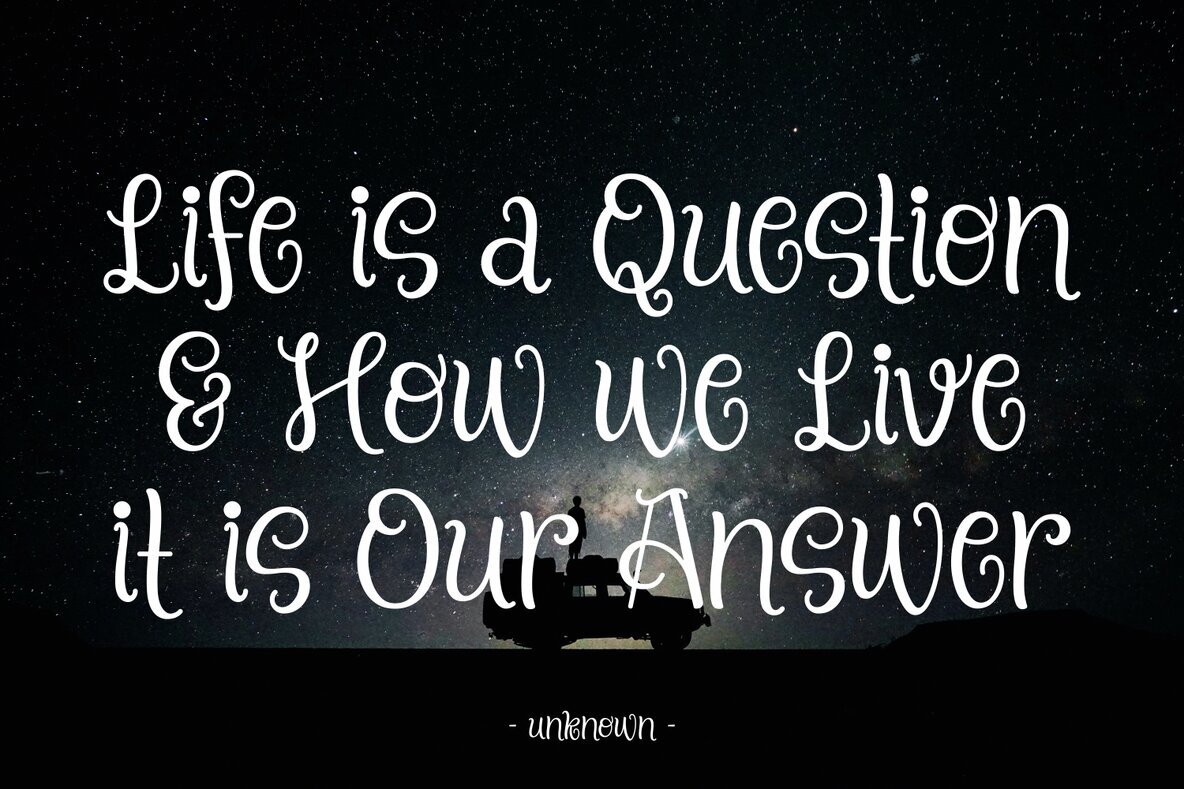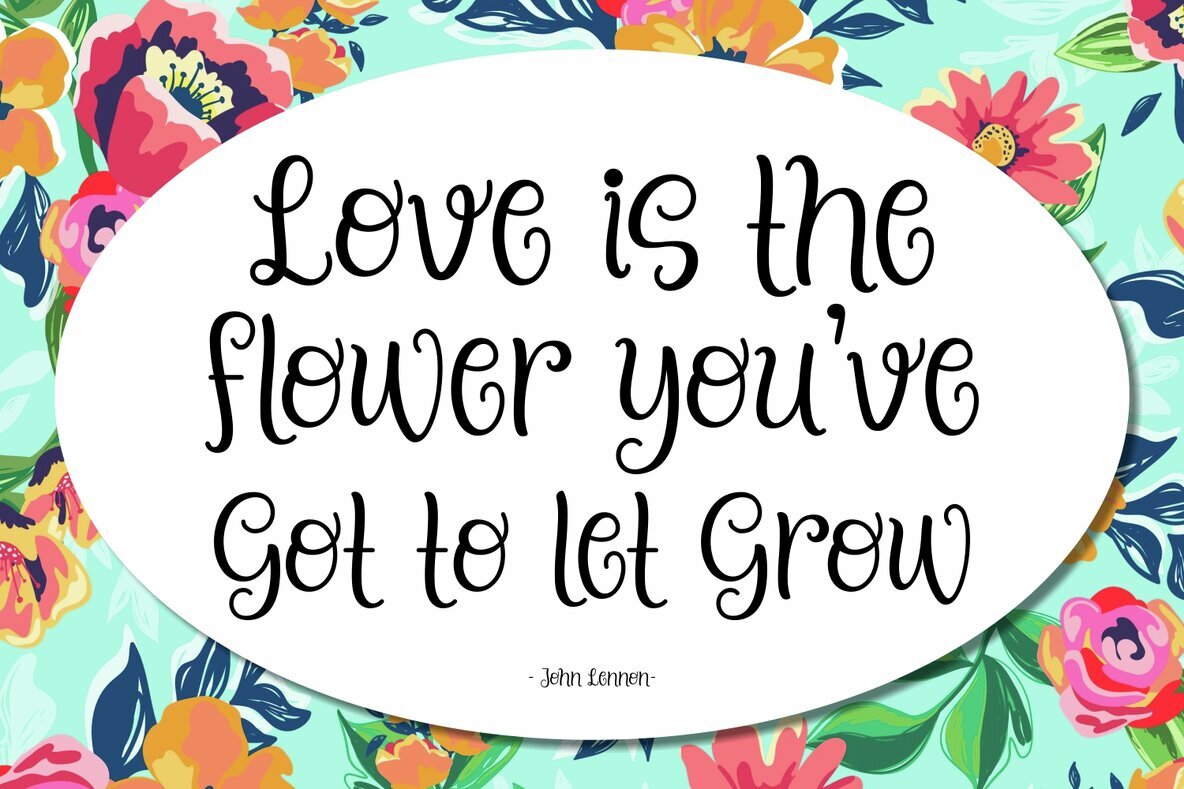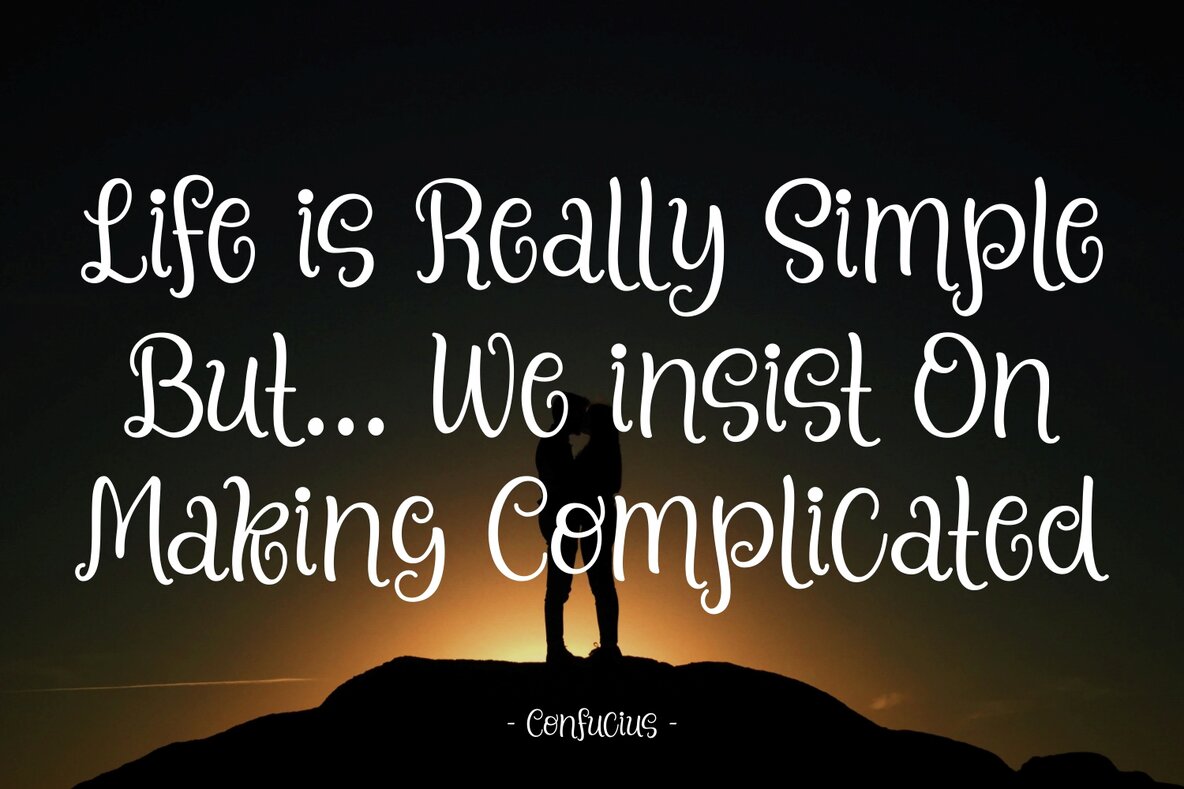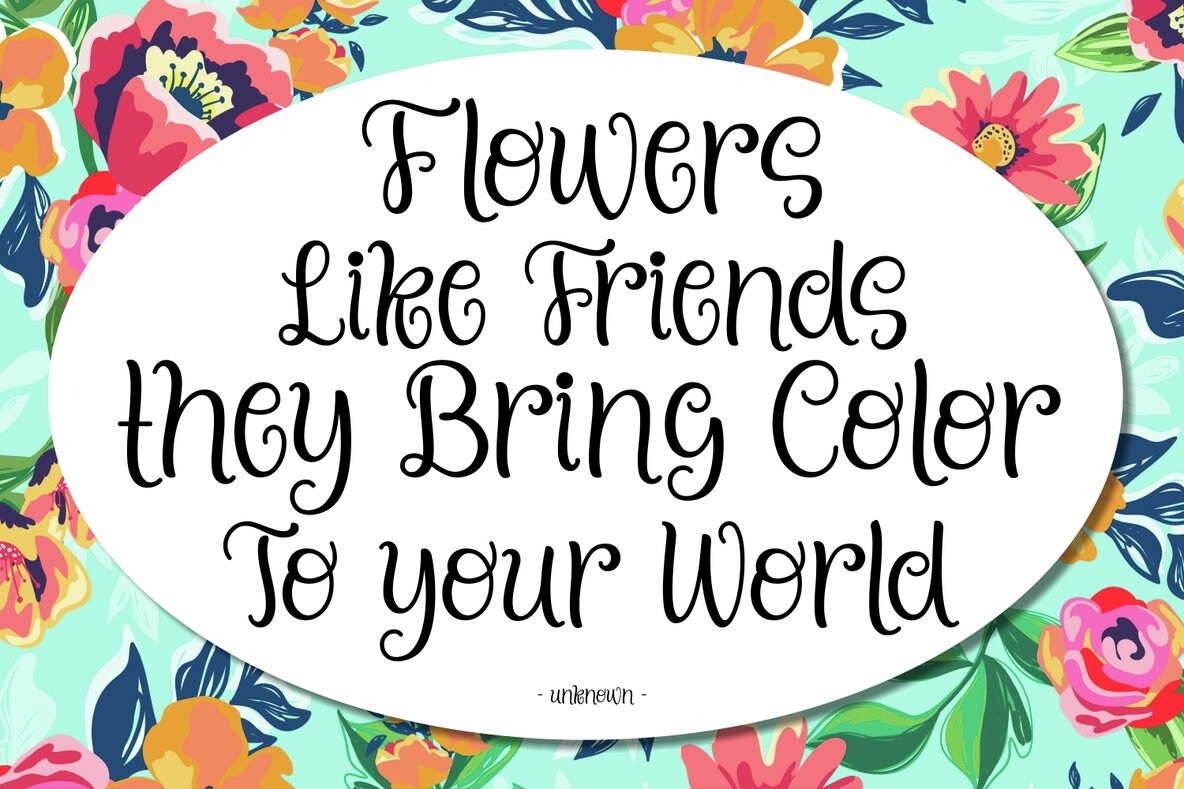
Funky Swirly is a cute and casual handwritten font with an incredibly friendly feel. It features gorgeous swashes and ligatures that make this script incredibly versatile. Whether you’re looking for fonts for Instagram or calligraphy scripts for DIY projects, Funky Swirly will turn any creative idea into a true piece of art!